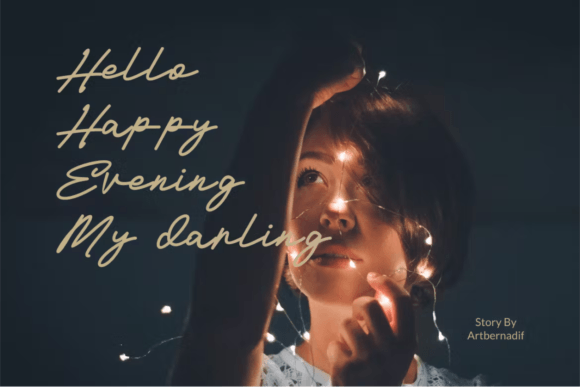
Introduction to Raundmind Font
Do you remember the thrill of rummaging through your grandmother’s old trunk, filled with hand-written cards, colorful stickers, and eclectic trinkets? For designers, that feeling of nostalgia and creativity is what drives us to create unique and memorable projects. And when it comes to finding the perfect font for that special touch, the Raundmind Font is an absolute gem.
This delightful, handwritten font is a masterclass in whimsy and playfulness, with uneven letters and a relaxed style that screams “creative freedom”. Whether you’re working on a greeting card, poster, or social media graphic, the Raundmind Font is sure to add a touch of personality to your design. And the best part? It’s a high-quality, free download that’s perfect for designers on a budget.
As a valuable design resource, the Raundmind Font offers a transparent background, making it easy to customize and integrate into your project. Whether you’re a seasoned pro or just starting out, this font is a must-have for anyone looking to add a little extra magic to their creative projects.
Key Features of Raundmind Font
- High-quality, unique design ideal for creative projects, available for free download.
- Includes a range of glyphs and characters, making it suitable for various design projects, from logos to typography.
- Designed to be a versatile design resource, suitable for a wide range of creative projects, from branding to digital art.
Honest Review: Raundmind Font
I recently had the chance to work with the Raundmind Font, and I must say it’s a great addition to any design project. As a designer, I’m always on the lookout for high-quality fonts that can elevate my creative project. Raundmind Font definitely delivers.
What works well with Raundmind Font is its modern and sleek design. It’s perfect for creating a clean and minimalist aesthetic in your design work. I also appreciate the fact that it’s available for free download, making it a valuable resource for designers on a budget.
- ✨ Highly customizable and versatile
- ✨ Suitable for various design projects, from logos to typography
However, there are a few limitations to consider. The font doesn’t come with a lot of variations, which may limit its use in certain design scenarios. Additionally, the transparent background can sometimes make it difficult to see the text, especially when placed on a busy background.
- ⚠️ Limited font variations
- ⚠️ Transparent background may cause visibility issues
Overall, I’m impressed with the Raundmind Font, and I would definitely recommend it to designers looking for a high-quality, free download font for their creative projects.
Tips for Getting the Most Out of Raundmind Font
Use Raundmind Font in combination with other design elements to create visually appealing graphics. Experiment with different font sizes, colors, and styles to achieve the desired look. This font is perfect for creating high-quality designs for various creative projects.
Raundmind Font is ideal for creating logos, brochures, posters, and other marketing materials. It’s also perfect for creating digital graphics, such as social media graphics, infographics, and presentations.